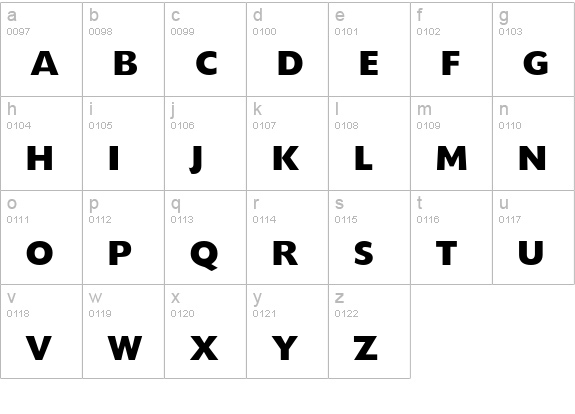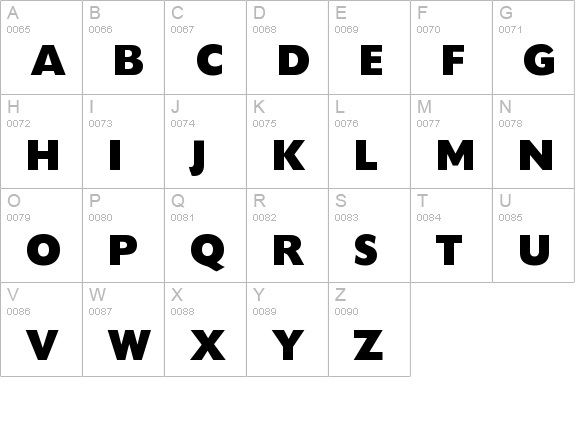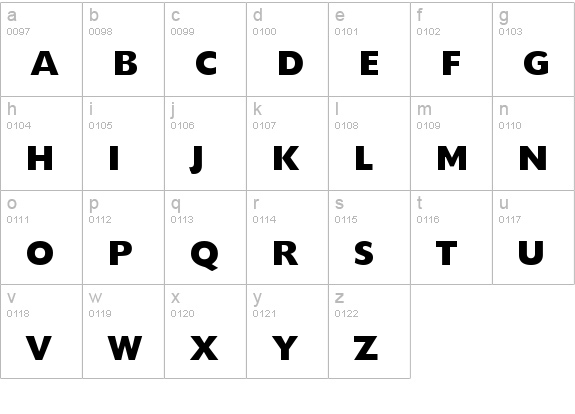
HeadlineNEWS Font Details
Introducing the HeadlineNEWS font - a stunning, attention-grabbing typeface that is perfect for all your headline needs. This versatile font is designed to make your headlines stand out and capture the attention of your readers. With its bold and impactful letterforms, HeadlineNEWS demands to be noticed. What sets HeadlineNEWS apart is that it is not only visually striking, but it is also free! Yes, you read that right. This incredible font is freely available to download at FontsMarket.com. Now you can elevate your headlines without breaking the bank. HeadlineNEWS is the perfect choice for newspapers, magazines, websites, and any other medium where headlines play a crucial role in captivating your audience. Its clean and modern design ensures readability, while its unique character adds a touch of sophistication to your headlines. Whether you're announcing breaking news, promoting a new product, or simply wanting to make a bold statement, HeadlineNEWS has got you covered. Its wide range of weights and styles allows you to experiment and find the perfect fit for your headline needs. What's more, HeadlineNEWS is not just limited to English characters. With its extensive language support, this font can be used for headlines in various languages, making it a truly versatile choice for global publications. Don't miss out on the opportunity to enhance your headlines with the HeadlineNEWS font. Visit FontsMarket.com today and download this incredible font for free. Elevate your headlines and captivate your audience with HeadlineNEWS.